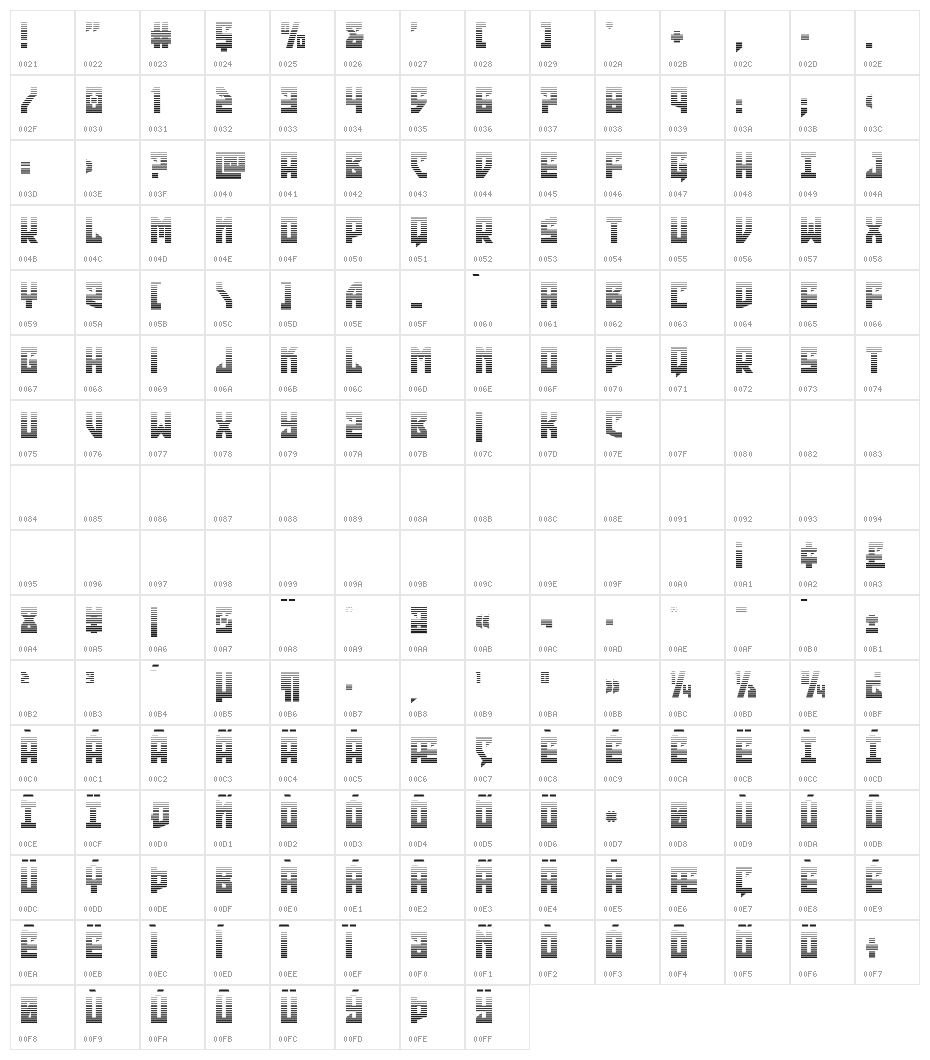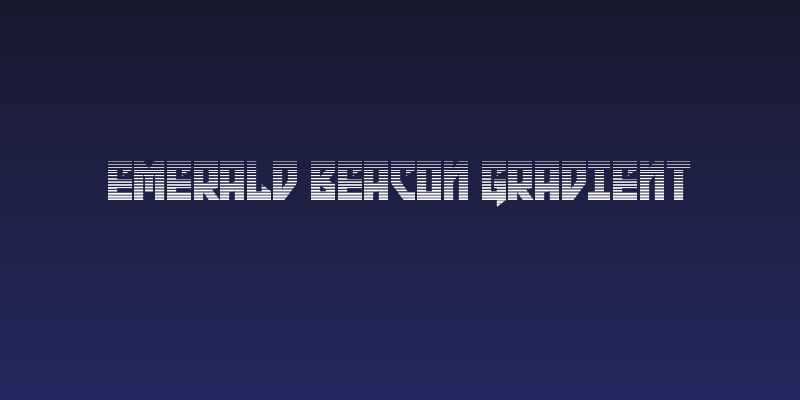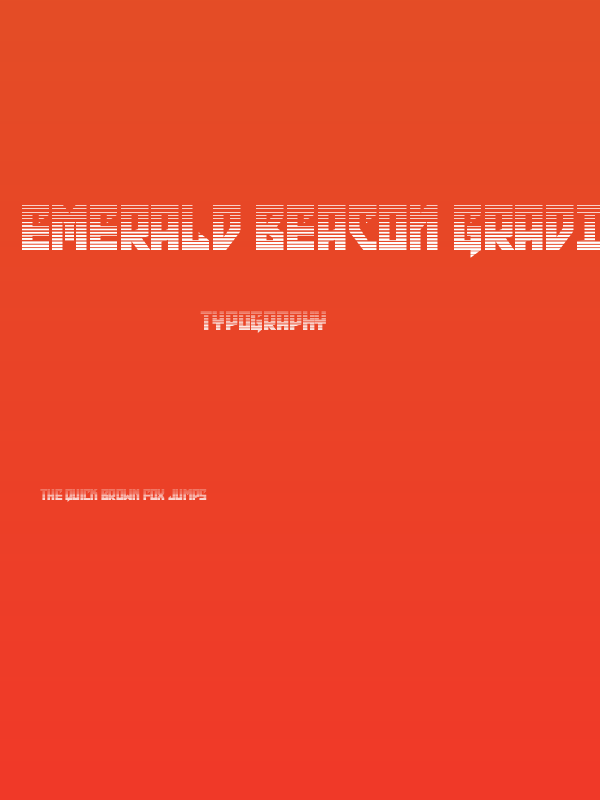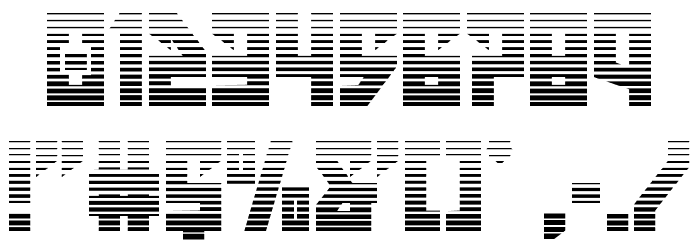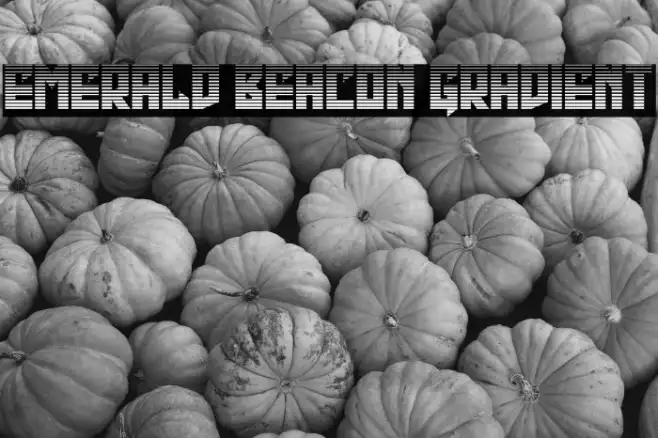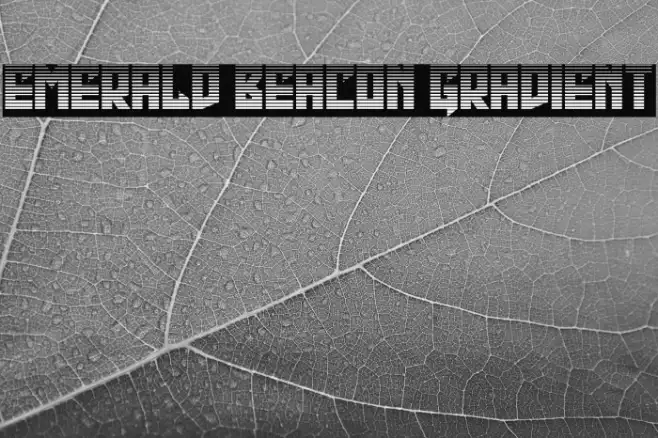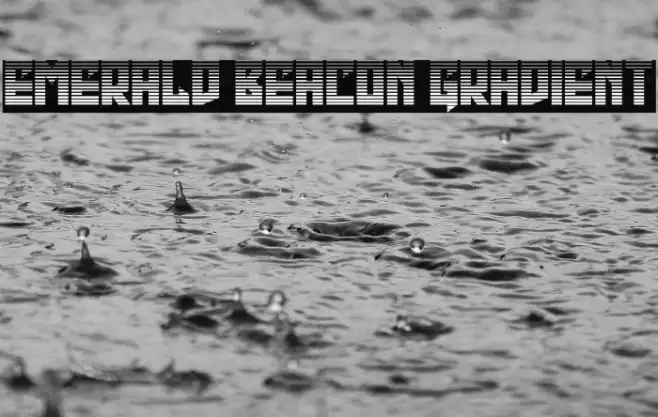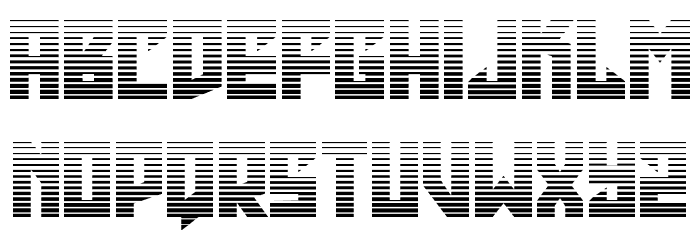
Emerald Beacon Gradient Font
Emerald Beacon Gradient Description
This font features a bold, futuristic design with a distinct striped pattern that creates a sense of movement and depth. Each character is composed of horizontal lines that vary in thickness, giving it a unique gradient effect. The angular, geometric shapes of the letters add a modern and edgy feel, making it stand out in any design. The uppercase and lowercase letters maintain a consistent style, while the numerals and special characters are crafted to match the overall aesthetic. This font is perfect for projects that require a bold statement and a touch of modernity.
| Proposed Projects | Ideal for sci-fi themed designs, modern posters, digital artwork, and branding that requires a futuristic touch. |